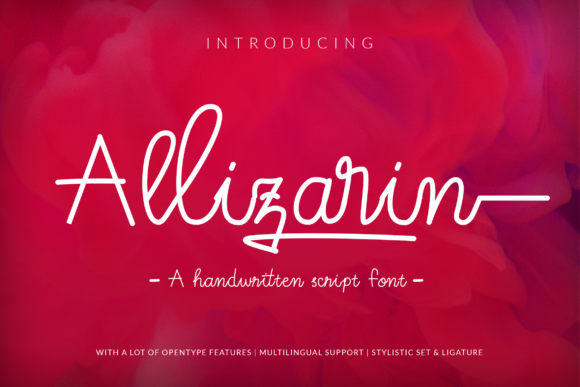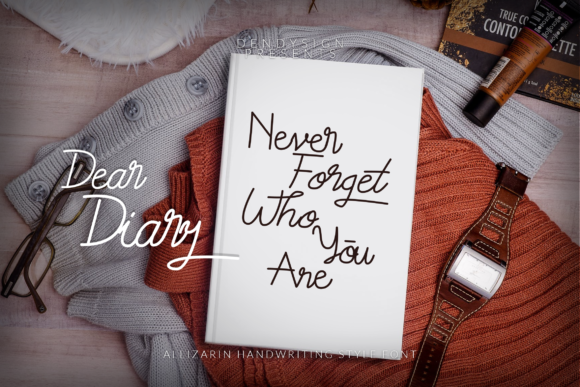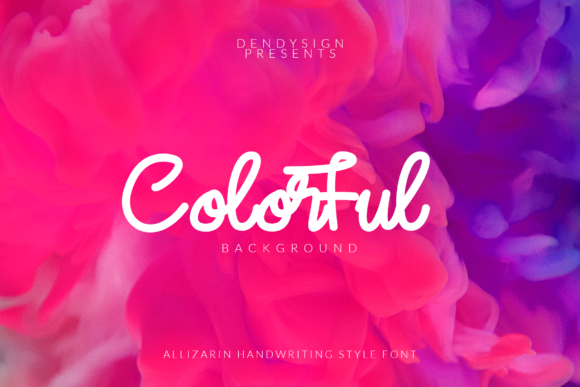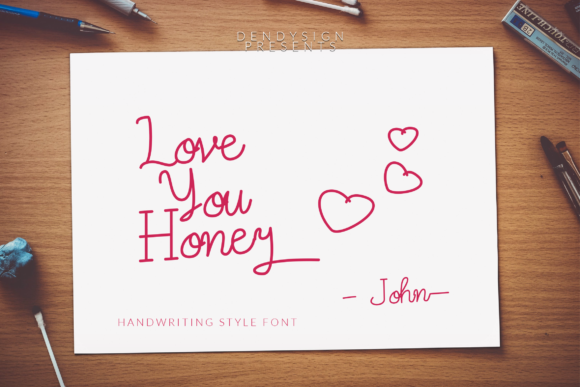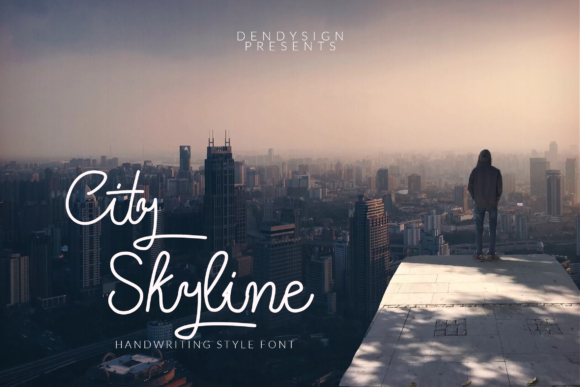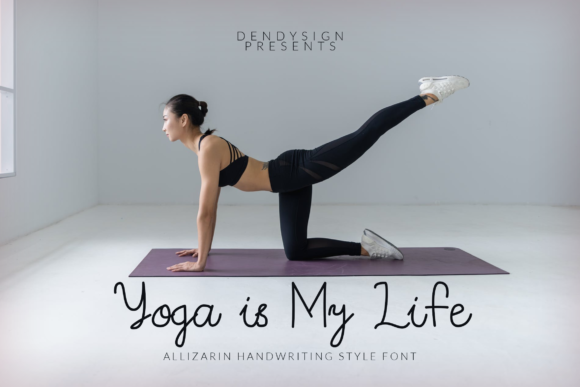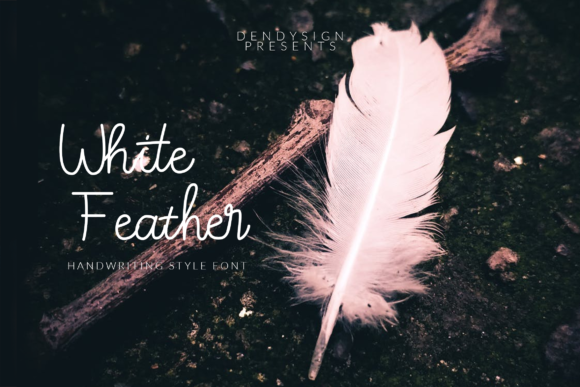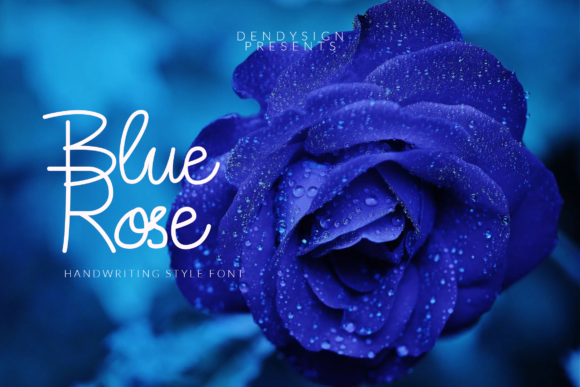
Allizarin Font
About Allizarin Font
Allizarin is a cool and playful handwritten font with a stunning vibe. Use it to add an authentic twist to any design project.